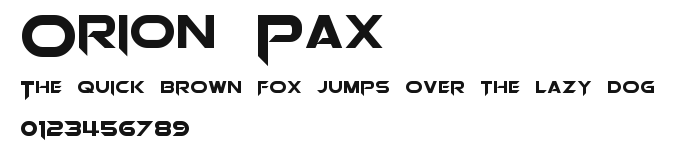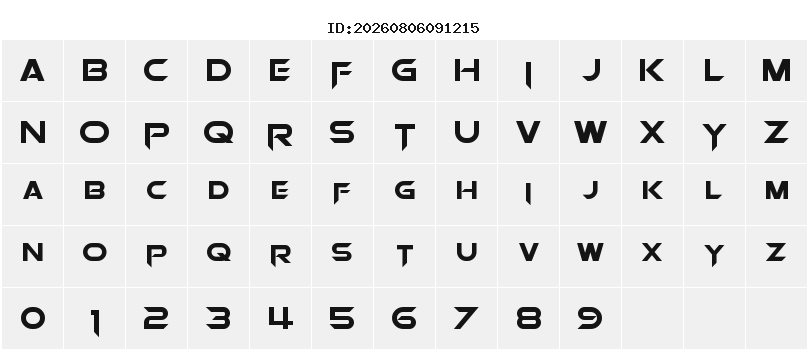
• Font Name: Orion Pax
• Full Font Name: Orion Pax Bold
• Designer: Neale Davidson
About Orion Pax.otf
Orion Pax.otf is a modern, elegant sans-serif font designed for ultimate readability and visual harmony. Perfect for branding, headlines, web design, and print materials.